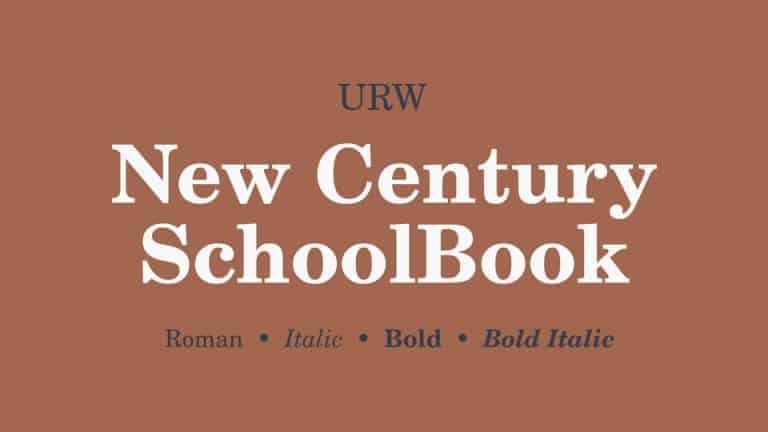
Century Schoolbook Serif Font
Century Schoolbook Serif Font is an elegant serif typeface family which includes 2 weights. It is multi-purpose and can be used for a variety of tasks.
It’s designed and shared by URW Type Foundry. New Century Schoolbook is a transitional serif typeface based on the Century Schoolbook designed by Morris Fuller Benton in 1919 for the American Type Founders.